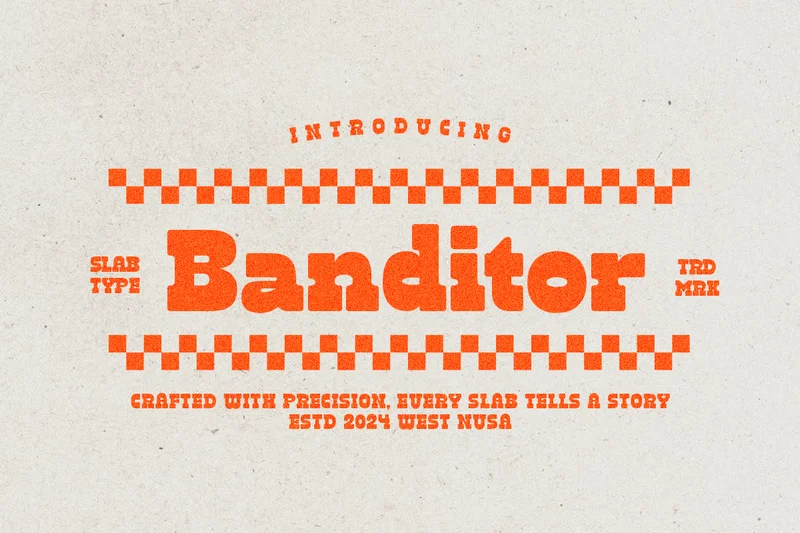
Banditor – Bold Slab Serif
Banditor is a bold and reverse slab serif. You can use this font for any purposes especially for cowboy themes. This font also suitable for branding, logo, retro design, and quotes. And you will get OTF/TTF file that you can install and use in any software designs especially Adobe Photoshop and Adobe Illustrator. Banditor also support multi language.